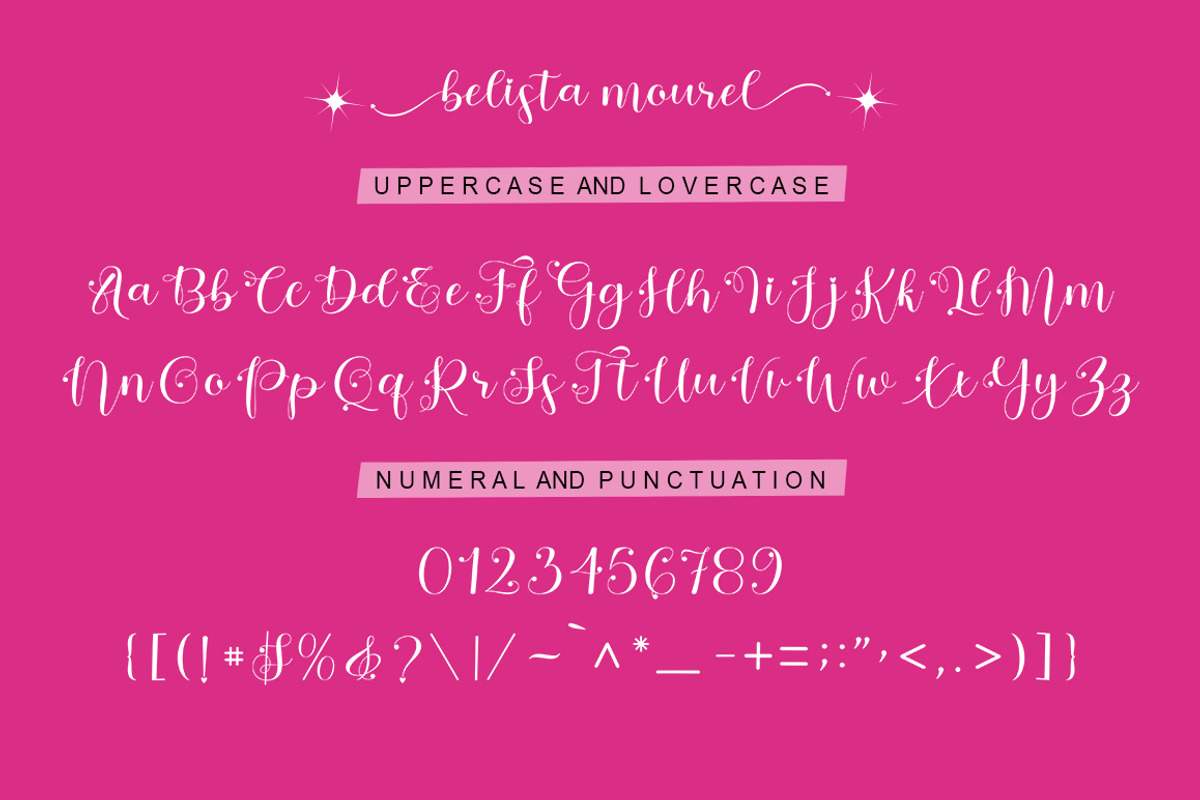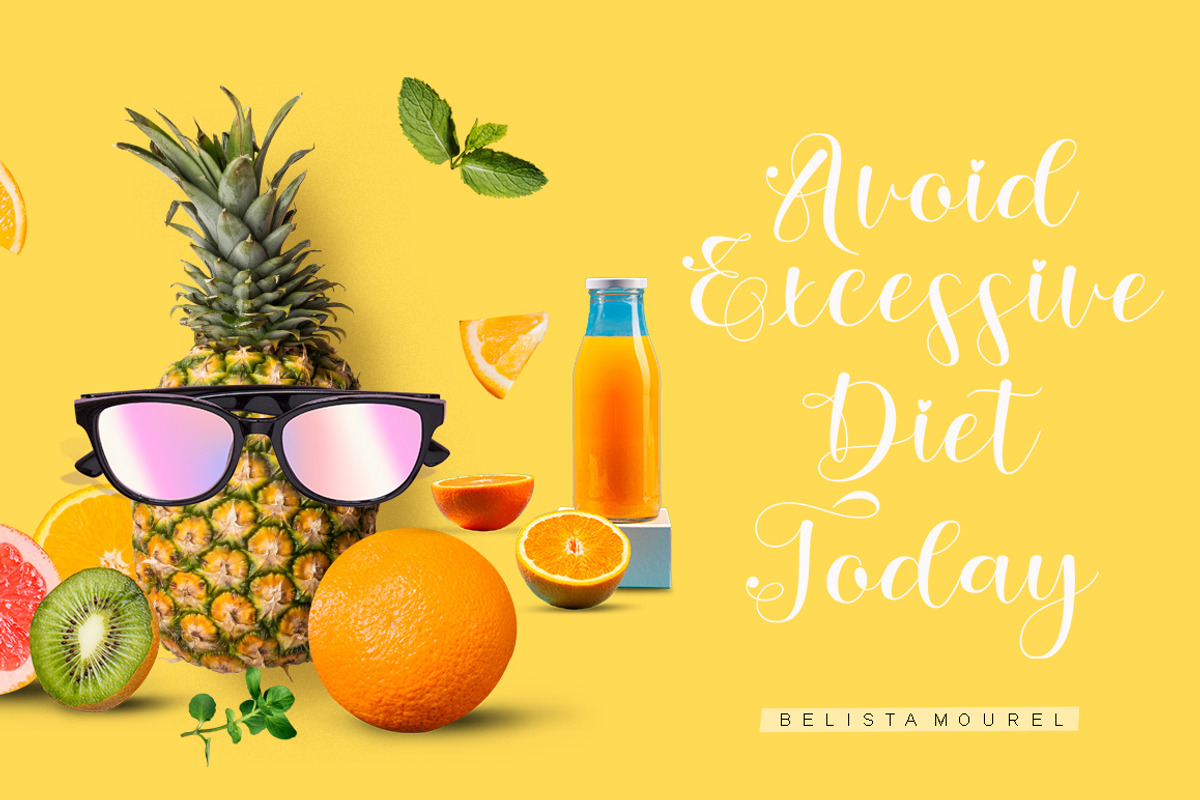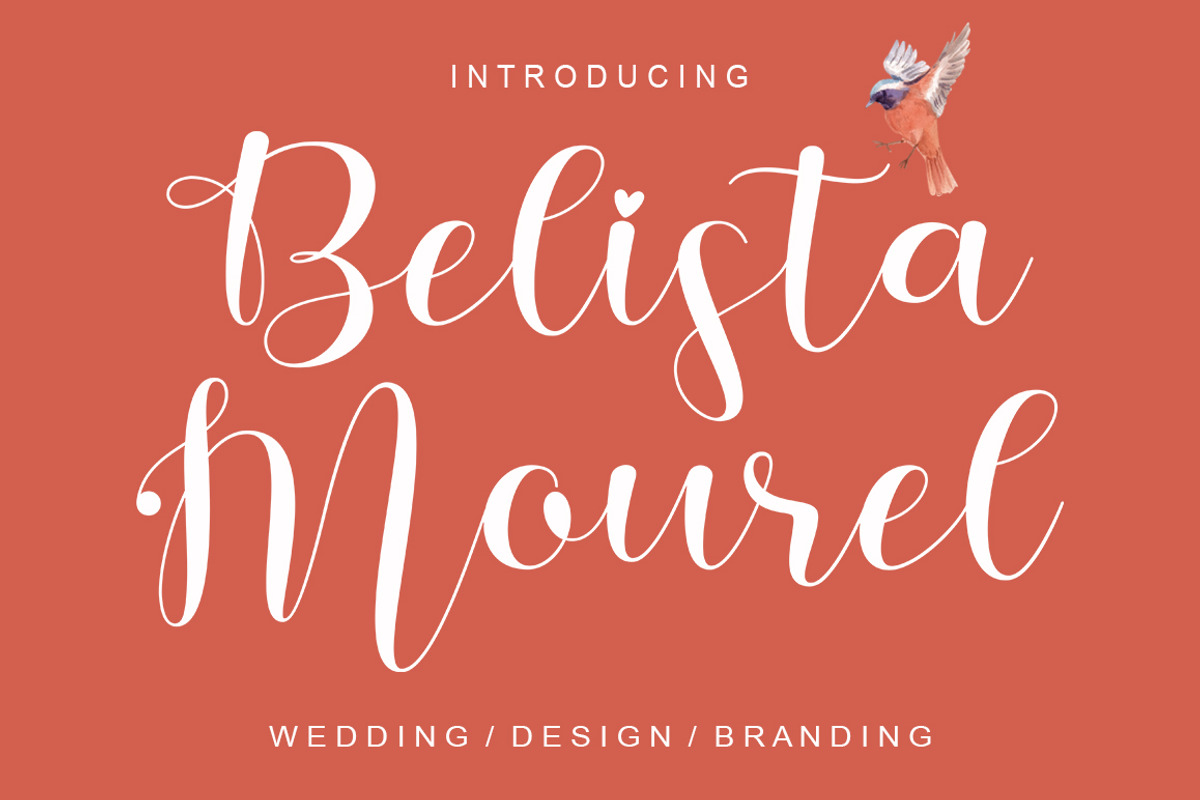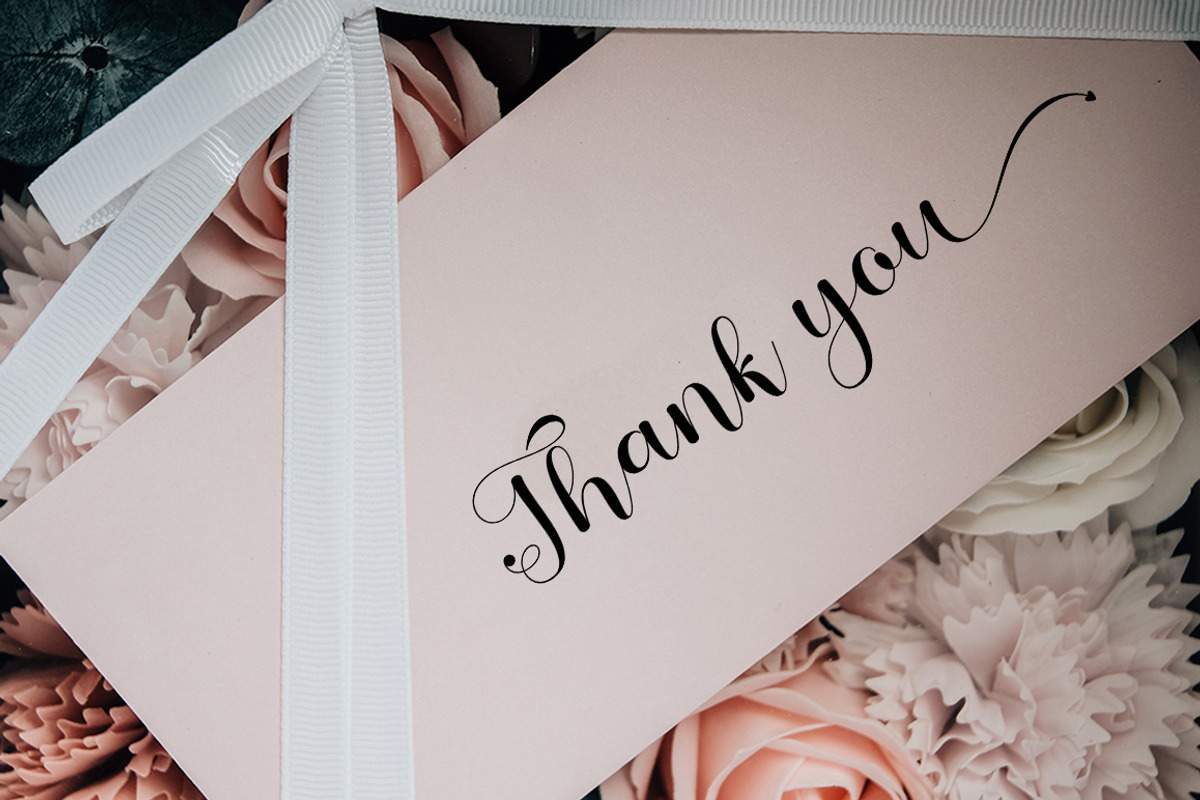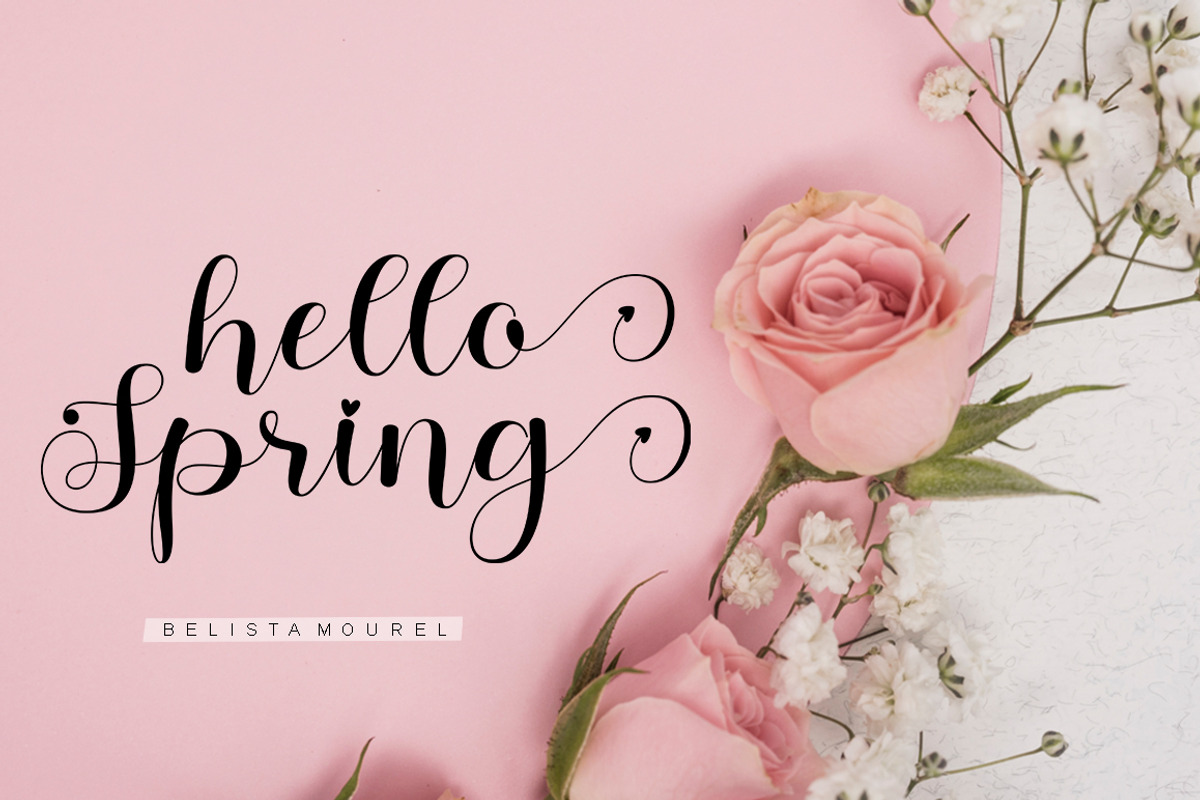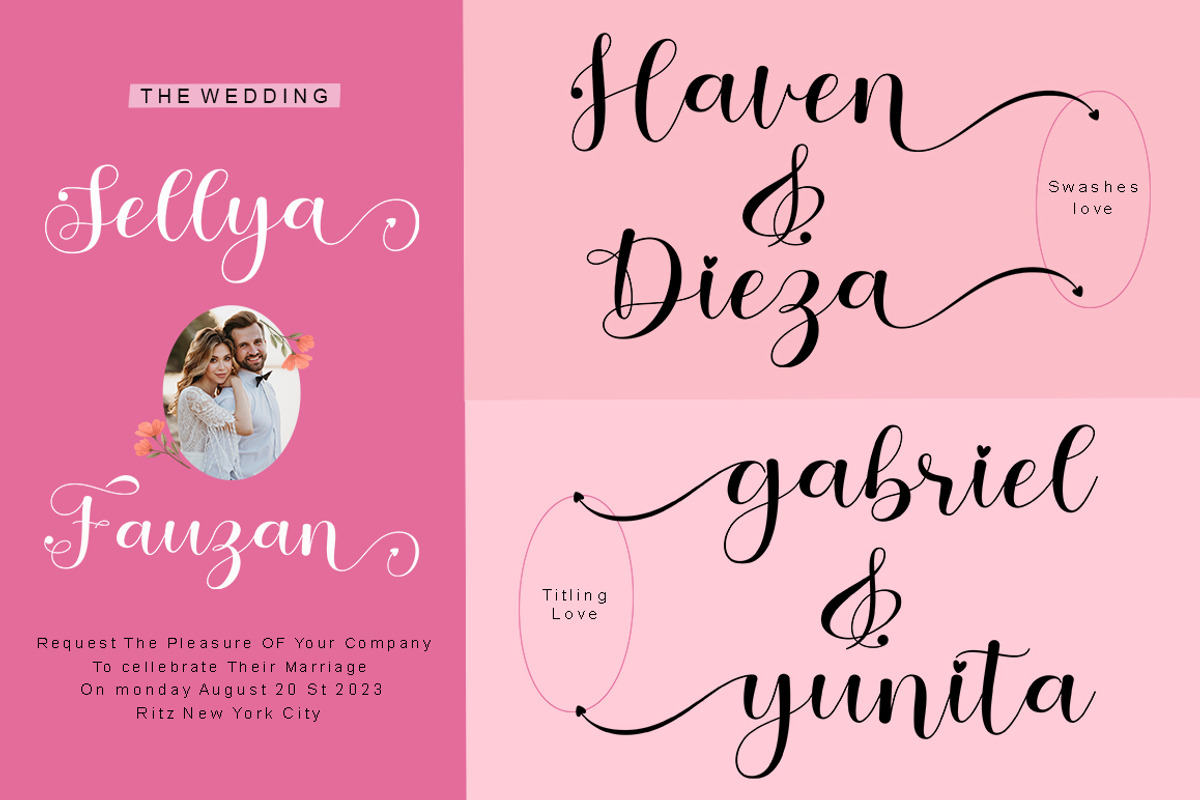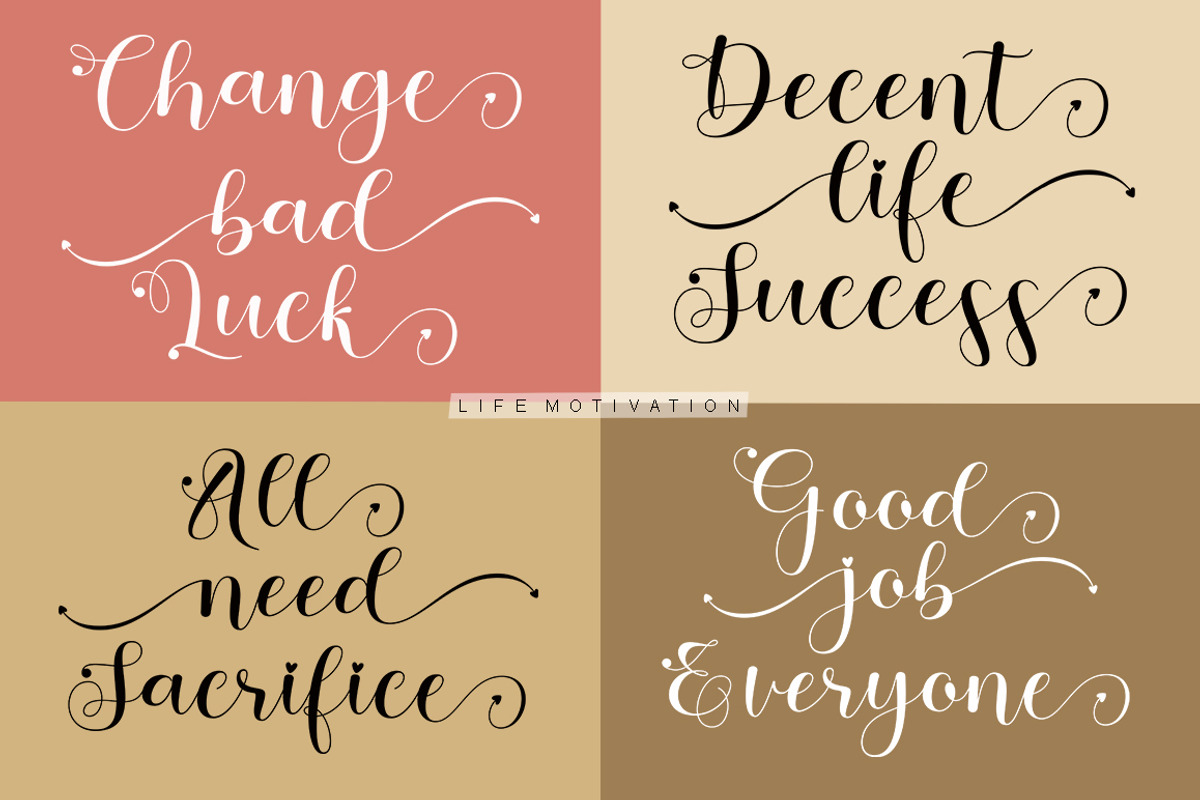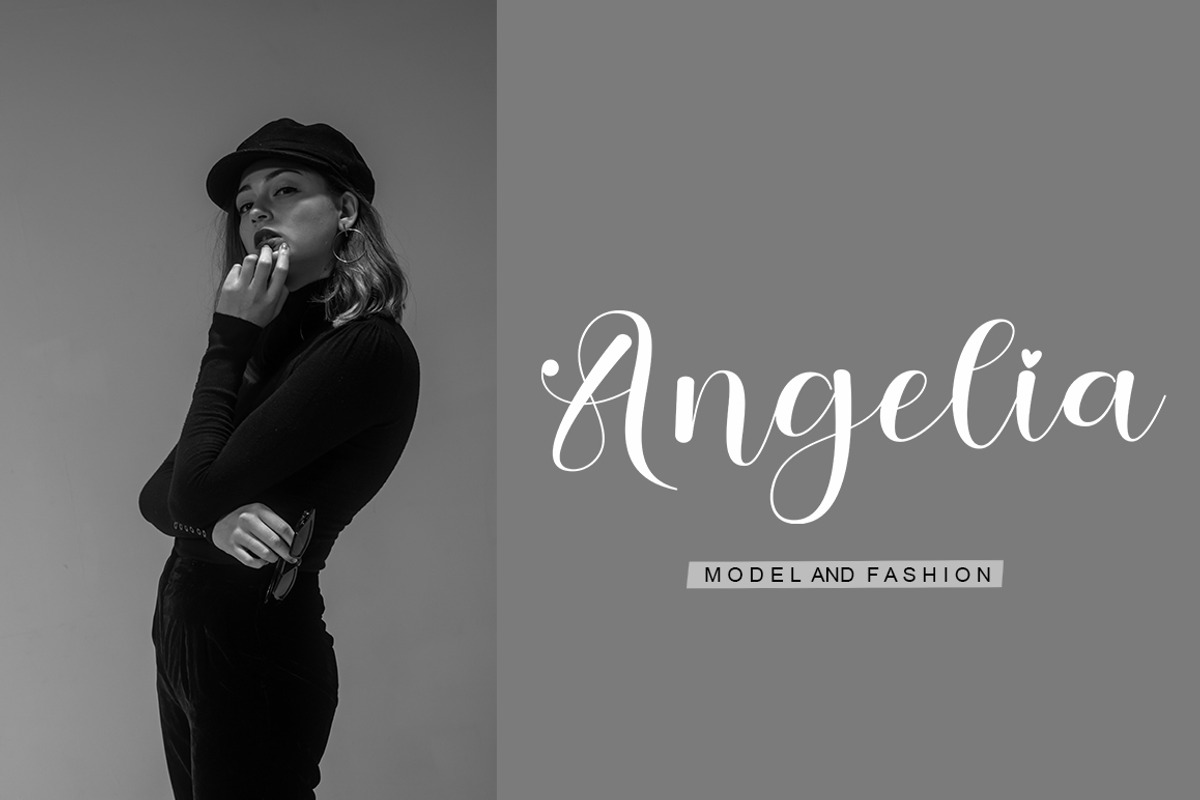
Belista Mourel
Belista Mourel is a beautiful script made by deep love. Belista Mourel with a natural handwriting touch is suitable for those of you who need a typeface for Headlines, Apparel, Invitations, Branding, Wedding, Logo Design, Lettering, Logotype, Clothing, Posters, Magazines and other design projects. What's Included: Belista Mourel Manuscript - TTF/OTF PUA encoded = Can be accessed in Adobe Illustrator, Adobe Photoshop, Adobe InDesign, even works in Microsoft Word. PUA Encoded Characters - Fully accessible without additional design software. How do I access the alternative glyphs? You can see them in this link (http://goo.gl/1vy2fv)Each Font Has: Stylish hand lettering style Beautiful Swash (Final Tail) Beautiful Titling (Initial tail) Special Ligature Multilingual Support PUA Encoded Characters - Fully accessible without additional design software.